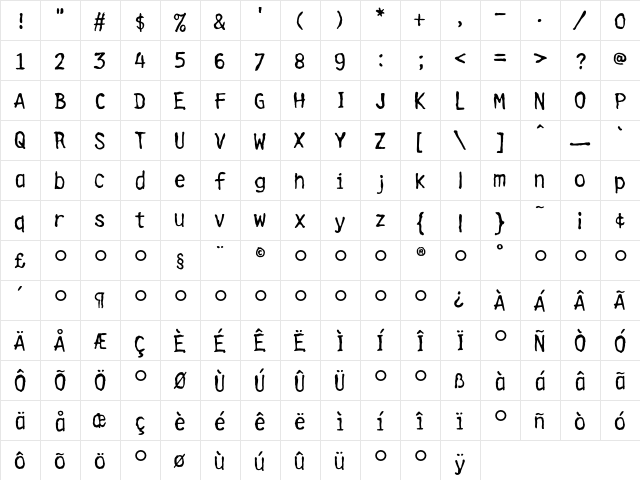
Cleanhouse Regular
Design Context for Cleanhouse Typeface
Cleanhouse is a composed and adaptable typeface that performs quietly and consistently across a wide range of design contexts.